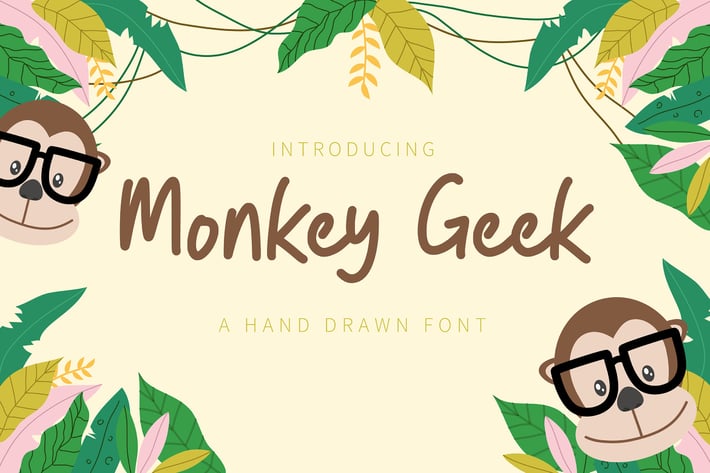
Monkey Geek – Fun Handwriting Font
Monkey Geek is a Fun Handwriting typeface, perfectly suitable for creating quotes, kid's books, lifestyle designs such as logos, titles, and magazines, and more.